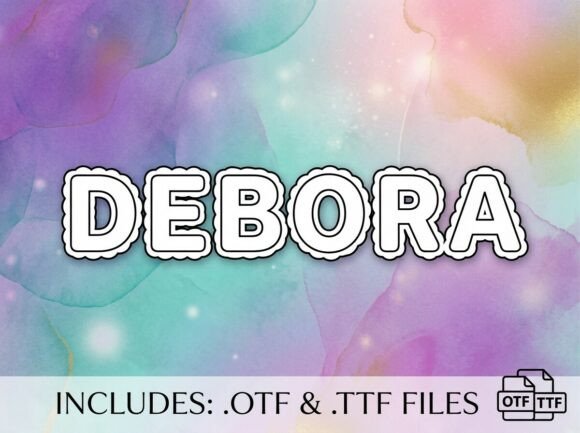
Introducing Debora Font: A Stunning Decorative Display Font
Are you tired of using the same old fonts for your creative projects? Look no further than Debora Font, a unique and artistic display font that’s sure to turn heads. Designed to be the center of attention, Debora Font is perfect for creators who want to break away from the ordinary and add a touch of elegance to their work.
What Makes Debora Font Special?
Debora Font is a decorative display font that boasts a strong visual personality, making it ideal for bold headlines, artistic logos, and creative packaging. Its unique artistic elements and sleek design ensure that it maintains a professional and polished finish, even when used for high-impact projects.
Key Features of Debora Font
- Unique Artistic Elements: Debora Font features intricate and artistic elements that set it apart from other fonts.
- Strong Visual Personality: This font has a bold and eye-catching design that’s sure to grab attention.
- Versatile: Debora Font can be used for a variety of projects, including bold headlines, artistic logos, and creative packaging.
- Professional and Polished Finish: Despite its bold design, Debora Font maintains a professional and polished finish.
Before purchasing Debora Font, please note that it is an ALL-CAPS (Uppercase Only) display typeface. This means that it does not include lowercase letters. It is specifically designed for high-impact headlines, logos, and decorative initials where every letter is a work of art.
Who is Debora Font Suitable For?
Debora Font is perfect for:
- Graphic Designers: If you’re looking for a unique and eye-catching font for your designs, Debora Font is an excellent choice.
- Log designers: This font is ideal for creating artistic logos that stand out from the crowd.
- Crafters: If you’re a crafter looking for a font to use for your handmade products, Debora Font is a great option.
- Marketing and Advertising Professionals: This font is perfect for creating bold and attention-grabbing headlines for marketing and advertising campaigns.
Tips for Using Debora Font
Here are a few tips for getting the most out of Debora Font:
- Use it for Headlines: Debora Font is perfect for creating bold and eye-catching headlines.
- Experiment with Colors: Try using Debora Font with different colors to add an extra touch of elegance to your designs.
- Pair it with Other Fonts: Debora Font can be paired with other fonts to create a unique and visually appealing design.
Debora Font is a stunning decorative display font that’s perfect for creators who want to add a touch of elegance to their work. With its unique artistic elements, strong visual personality, and versatility, this font is sure to turn heads. Whether you’re a graphic designer, log designer, crafter, or marketing professional, Debora Font is an excellent choice for any project.